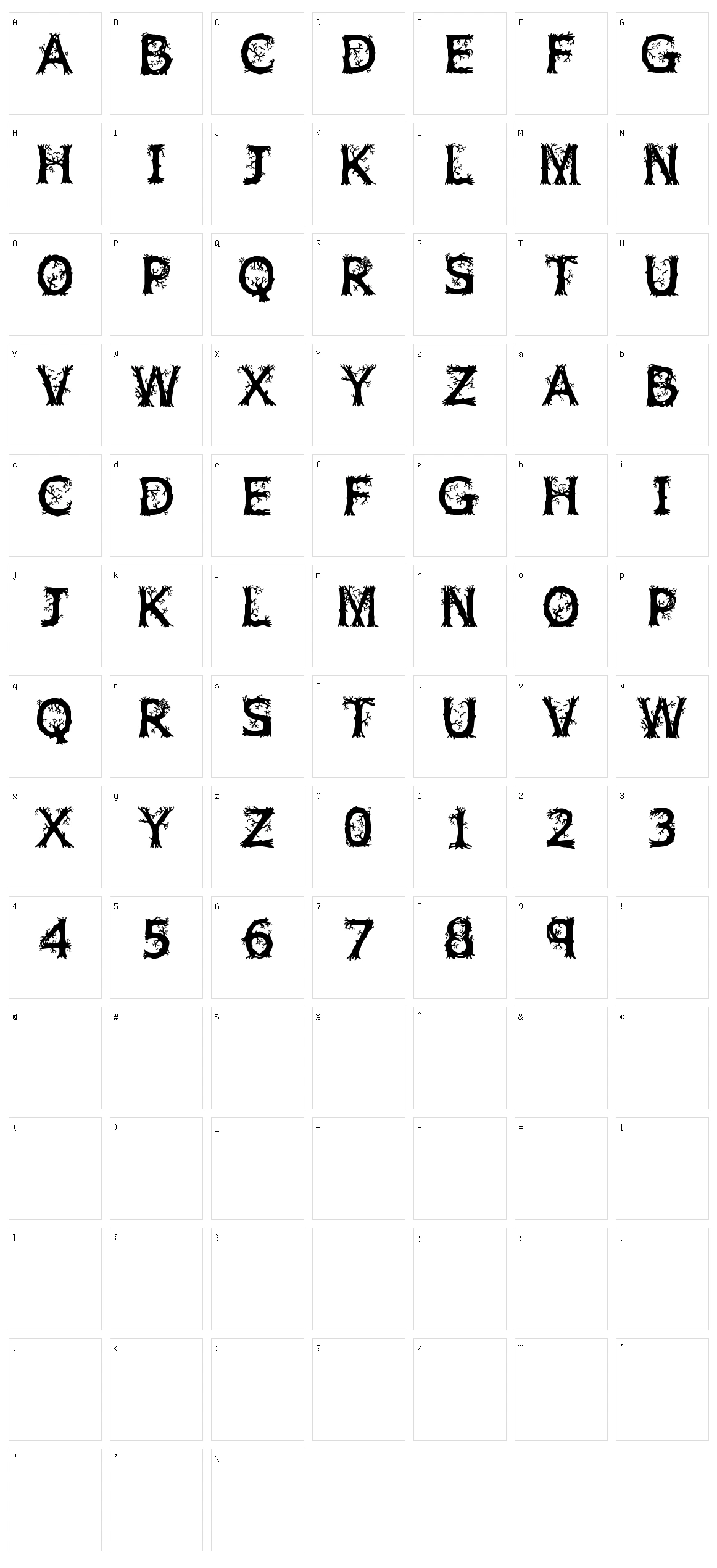
The free font Wild Wood is carefully designed by Jester Font Studio, showcasing a thoughtful balance of creativity and usability and falls under the Halloween font style. When you download the ZIP file, it contains only 70.62 KB of font files, making it lightweight and quick to download. Please review the license details below to understand permitted usage and distribution rights. If license information is not available, we recommend using this font for personal projects only or contacting the author directly for commercial usage permissions.